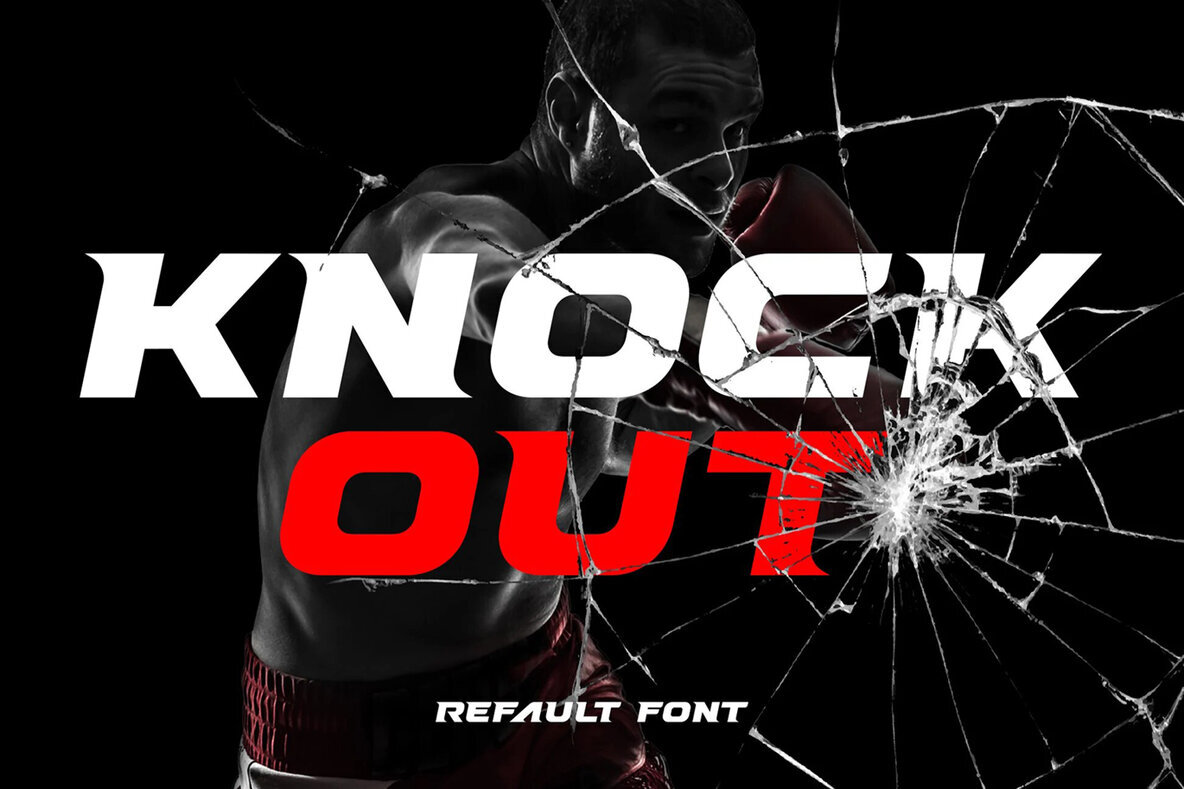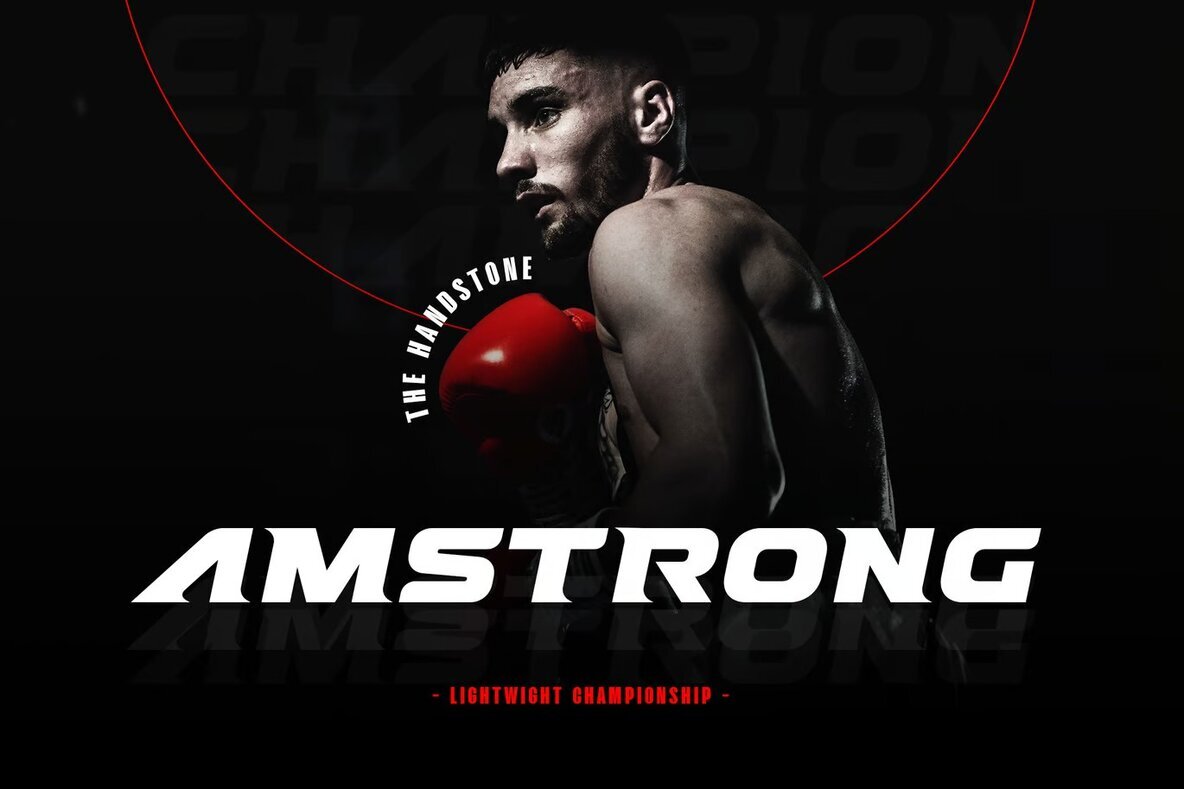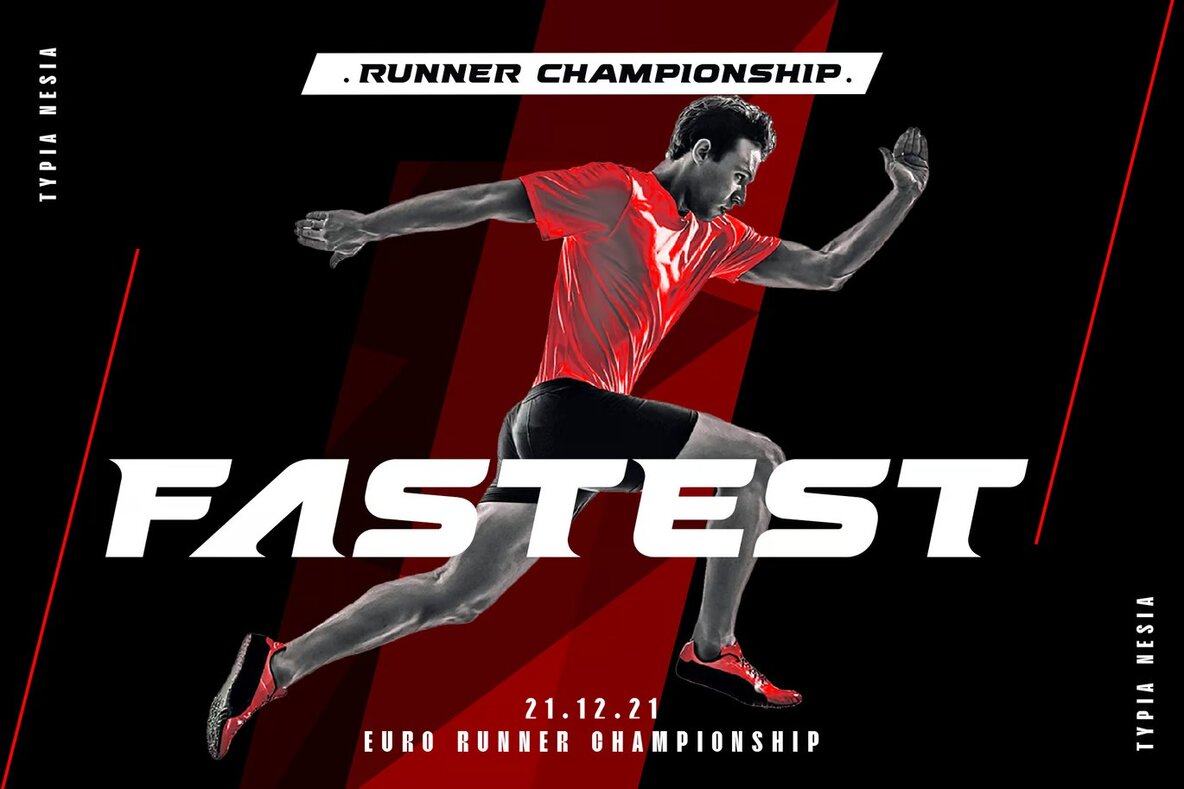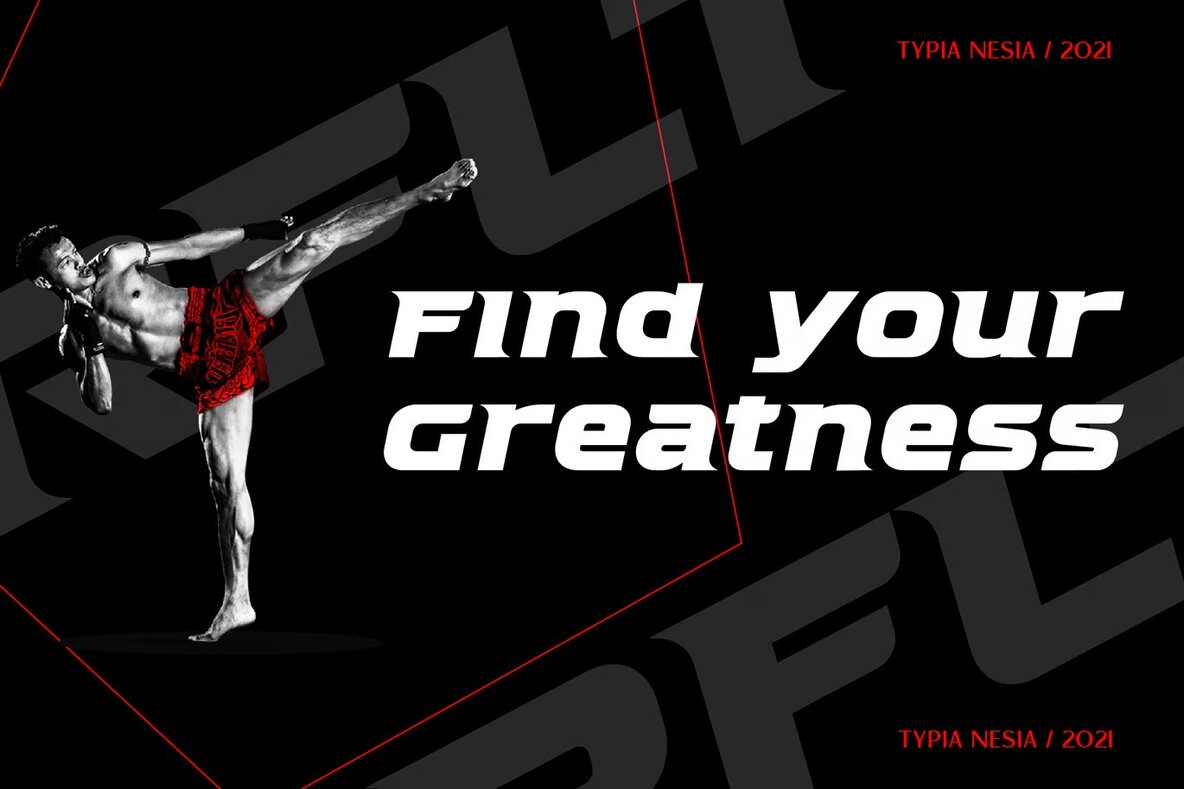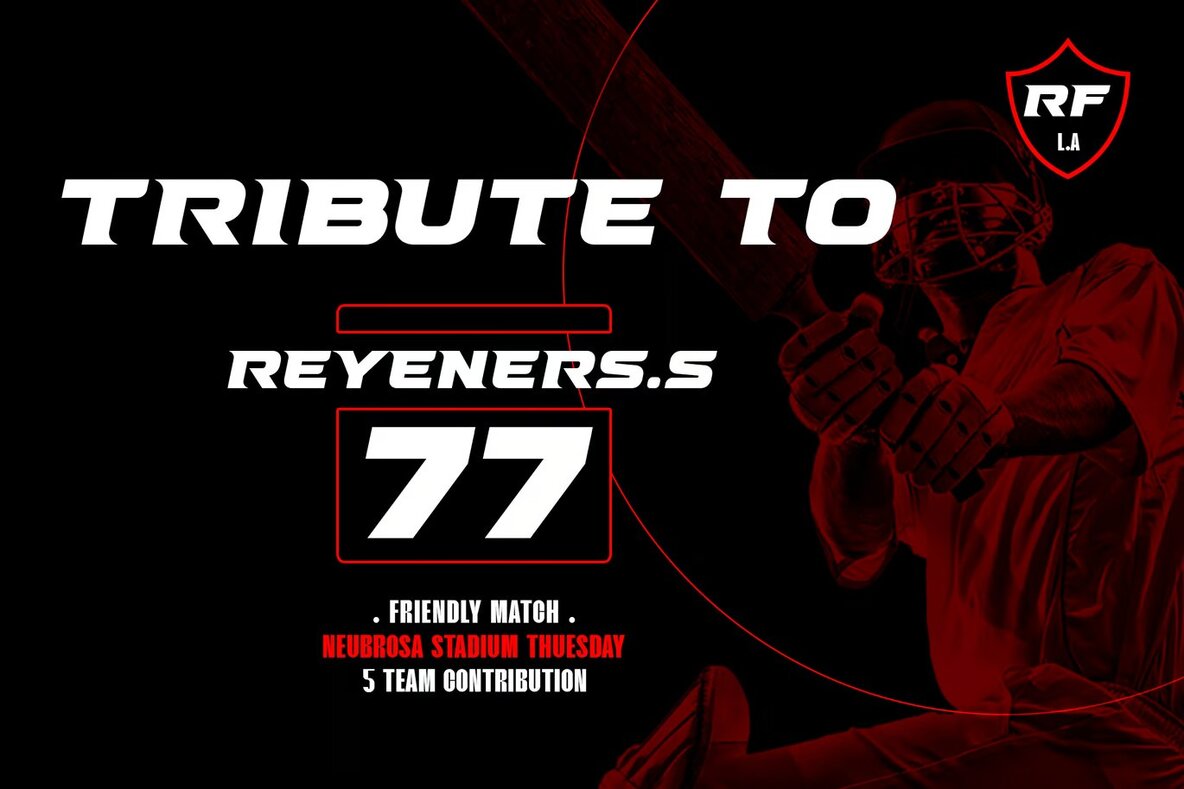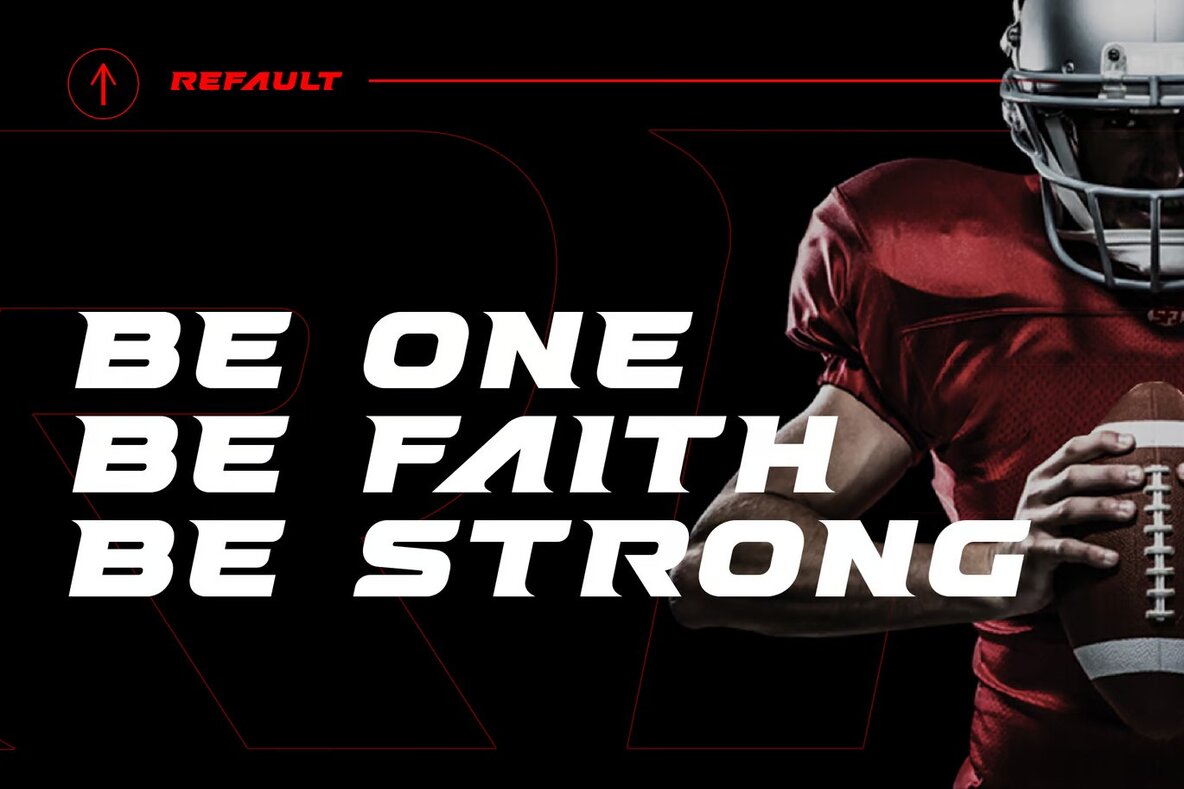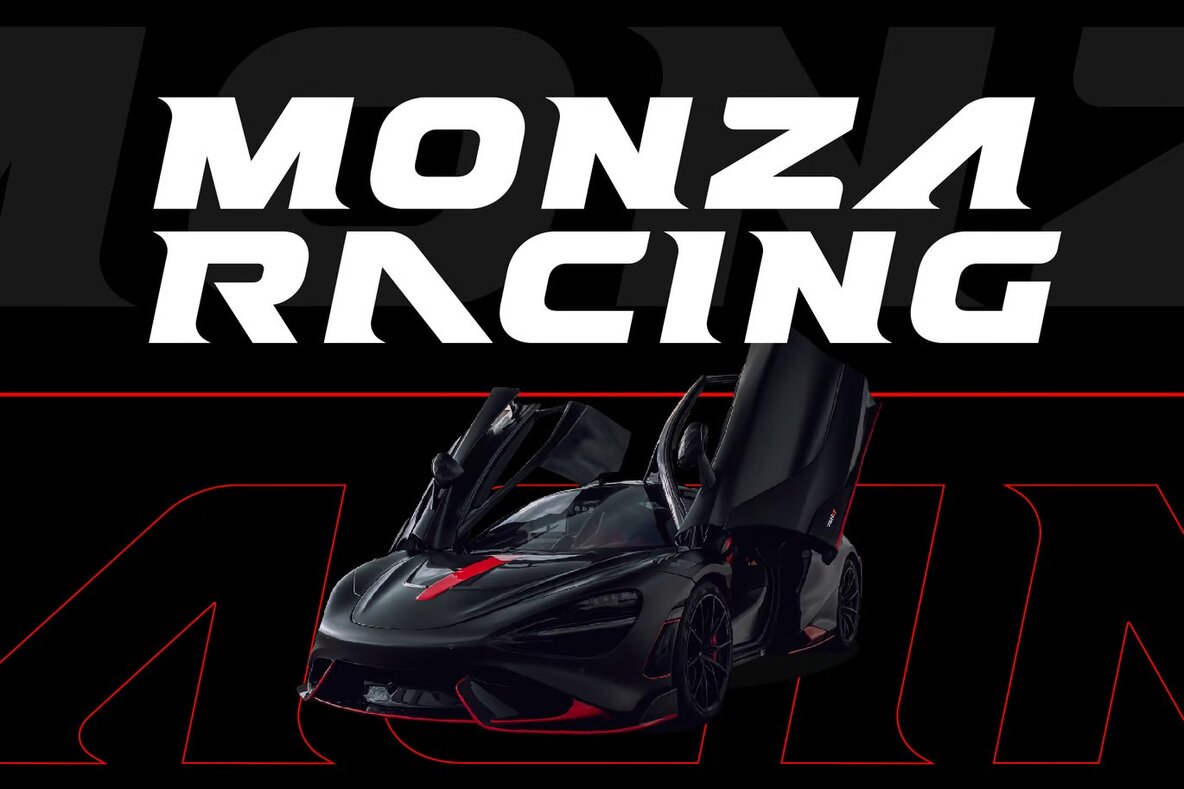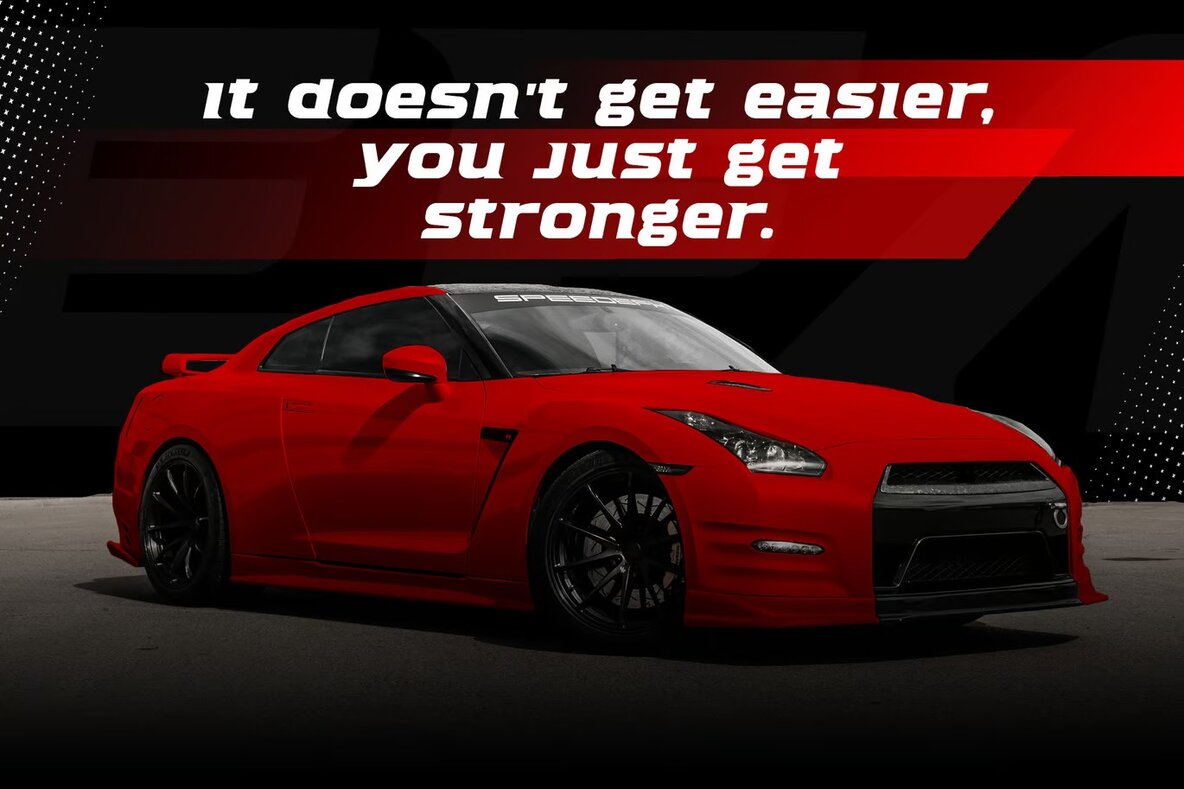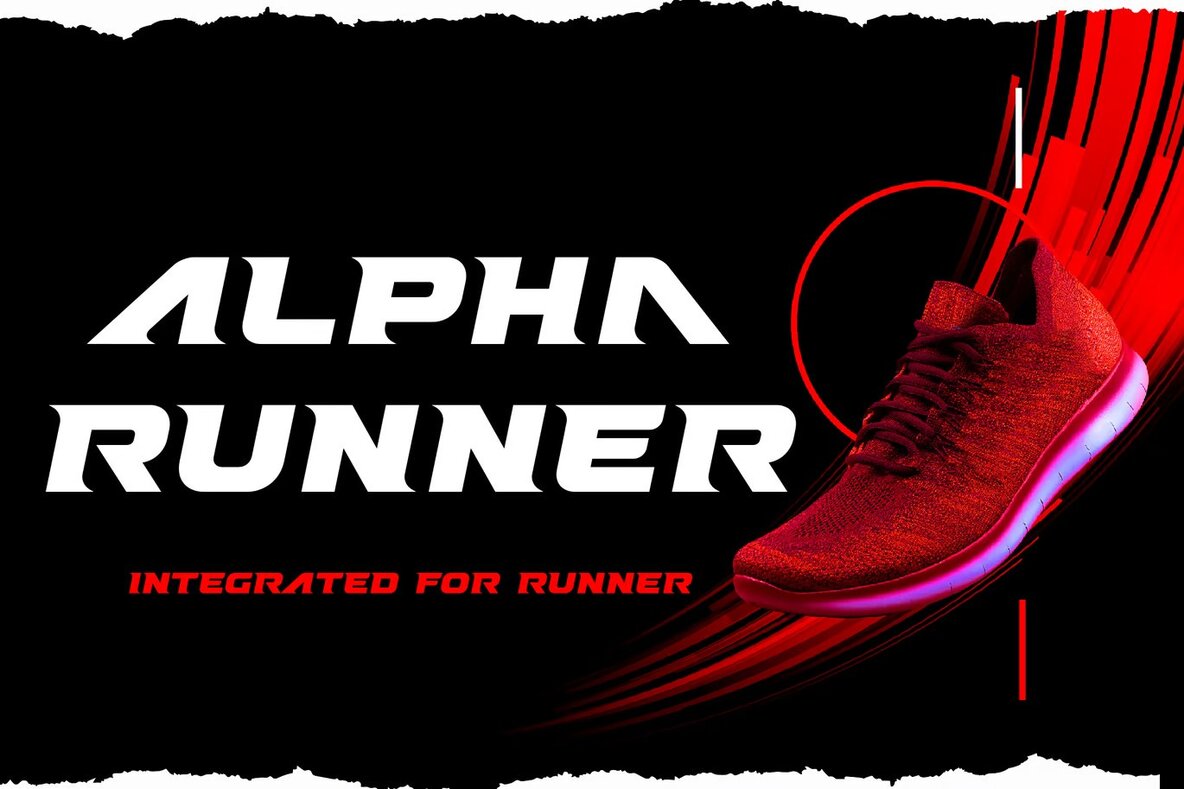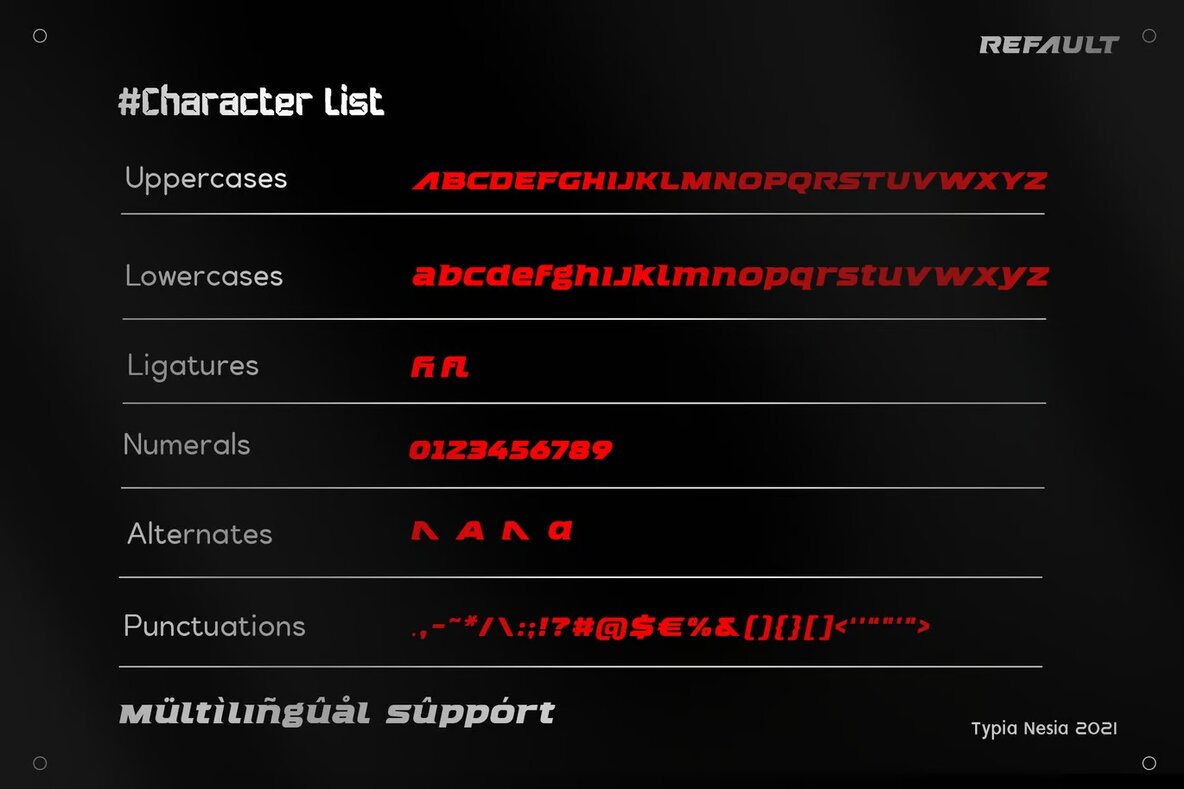
Refault Font
Refault Italic
Refault Sport Game Sans Serif Display Font is a bold and dynamic typeface crafted for a range of modern design projects. It's an excellent choice for creating impactful logo branding, eye-catching editorial and esport designs, or reviving the classic 80s retro style. Ideal for the gaming industry and sports racing themes, this font also brings a high-performance flair to super car branding. Whether used in music posters, modern website design, or special event advertisements, Refault ensures a strong visual presence.
Beyond its versatility, Refault's bold structure makes it suitable for striking poster quotes, book or cover titles, and other compelling applications. Its robust sans serif design is engineered to capture audience attention across digital platforms and print media alike. Embrace the boldness and adaptability of this font to generate engaging and memorable designs that resonate with contemporary style demands.